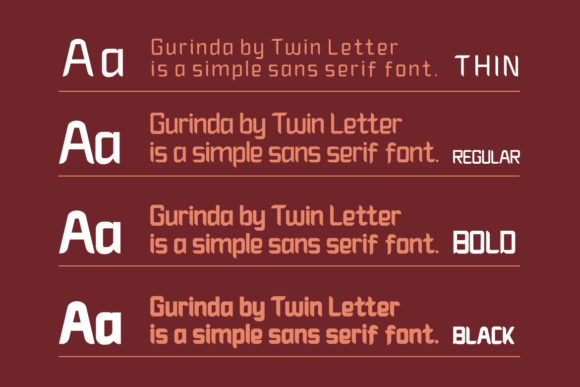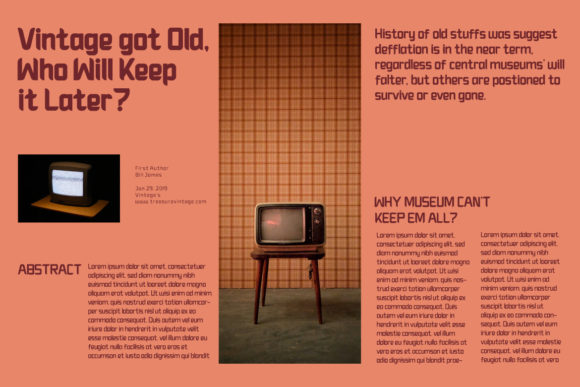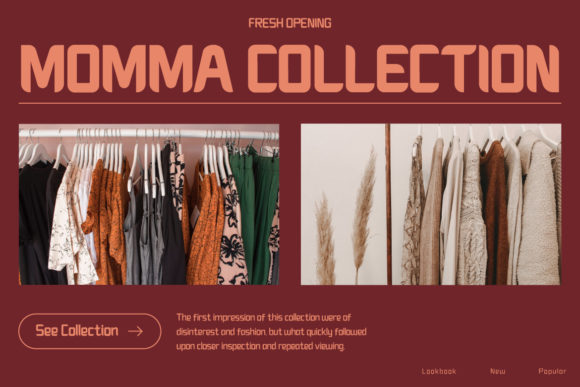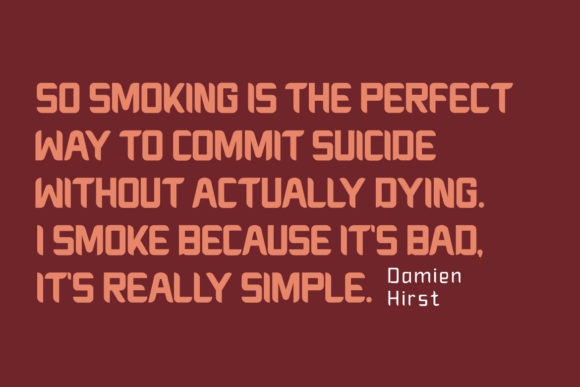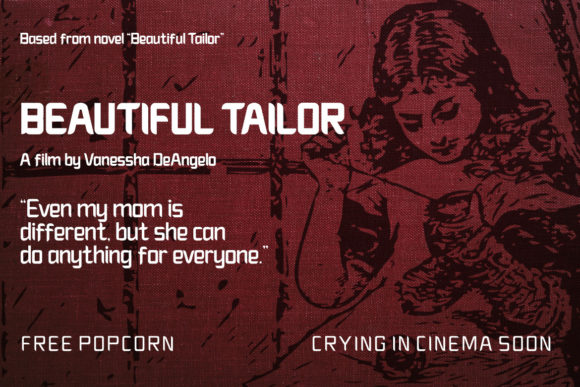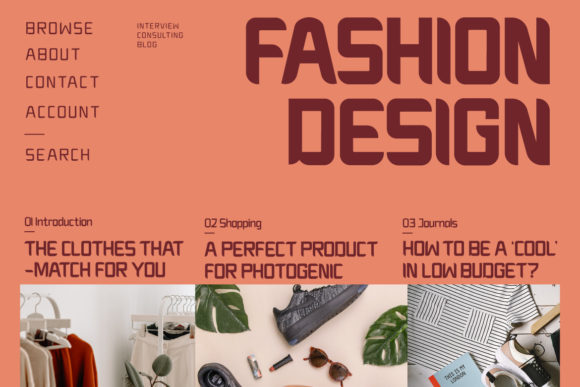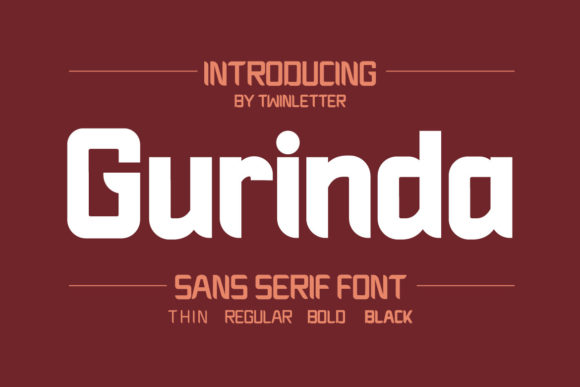
Introducing Gurinda Font: Elevate Your Design with a Touch of Elegance
In the world of design, typography plays a crucial role in conveying messages, expressing creativity, and capturing the audience’s attention. A well-chosen font can make all the difference in transforming a project from ordinary to extraordinary. If you’re on the lookout for a fresh and versatile sans serif font to take your designs to the next level, look no further than Gurinda Font. Designed to complement your unique and infinite creativity, Gurinda is poised to become your go-to typeface for a wide range of projects.
The Essence of Gurinda Font
Gurinda is a new and spectacular sans serif font that boasts a clean, modern aesthetic. Its design is centered around being both visually appealing and highly legible, making it an excellent choice for both body text and headlines. The font’s versatility stems from its ability to seamlessly blend into various design contexts, from digital platforms to print materials, ensuring your projects always look polished and professional.
Why Choose Gurinda Font?
So, what sets Gurinda apart from other fonts in the sans serif category? Here are a few compelling reasons to consider:
• Ease of Reading: Gurinda’s clear and straightforward design ensures that your text is easy to read, making it perfect for body text in articles, blogs, and more.
• Enchanting Titles: When used as a title font, Gurinda adds an enchanting and astounding touch to your projects, capturing the audience’s attention and setting the tone for your message.
• Versatility: Gurinda comes equipped with different character styles suitable for titles, subtitles, and body text. This range allows you to maintain consistency across your project while adding layers of depth and visual interest.
• Uniqueness: Don’t hesitate to let your creativity shine. Gurinda is designed to enhance your unique design voice, ensuring that your projects stand out in a crowded creative landscape.
Applications of Gurinda Font
The applications of Gurinda Font are vast and varied. Here are some scenarios where Gurinda can make a significant impact:
• Digital Marketing: Use Gurinda for website content, social media posts, and email newsletters to create a cohesive and engaging brand voice.
• Print Design: Whether you’re working on brochures, posters, or business cards, Gurinda’s clarity and elegance make it an excellent choice.
• Branding: Establish a strong brand identity with Gurinda, using its various styles to differentiate between headings, subheadings, and body text.
• Packaging: Add a touch of sophistication to your product packaging with Gurinda, making your products stand out on store shelves.
Gurinda Font is more than just a typeface; it’s a design companion that can elevate your projects from ordinary to extraordinary. Its blend of modernity, legibility, and versatility makes it an invaluable asset for designers and crafters looking to leave a lasting impression. By incorporating Gurinda into your design toolkit, you’ll be well-equipped to tackle a wide range of projects with confidence and creativity. So, why wait? Start using Gurinda Font today and discover the difference it can make in your design endeavors.